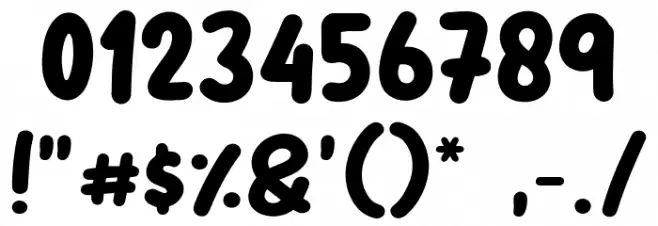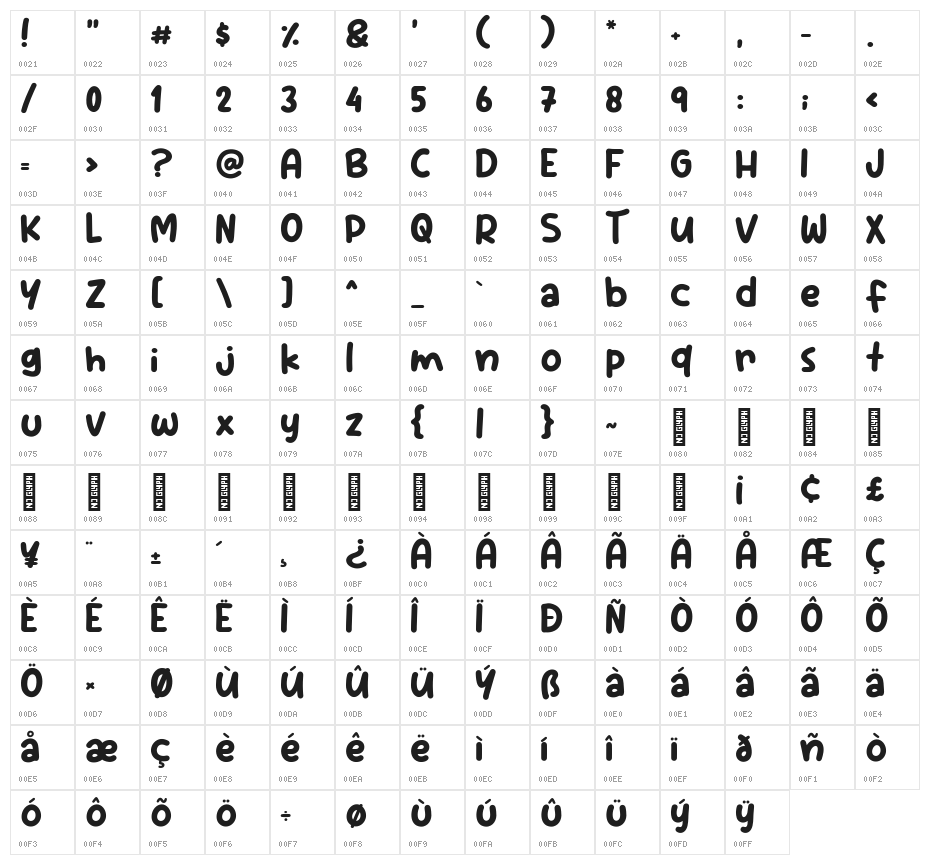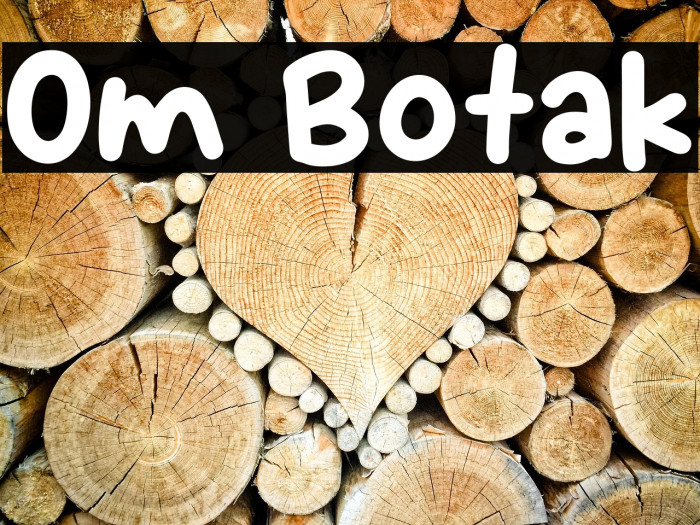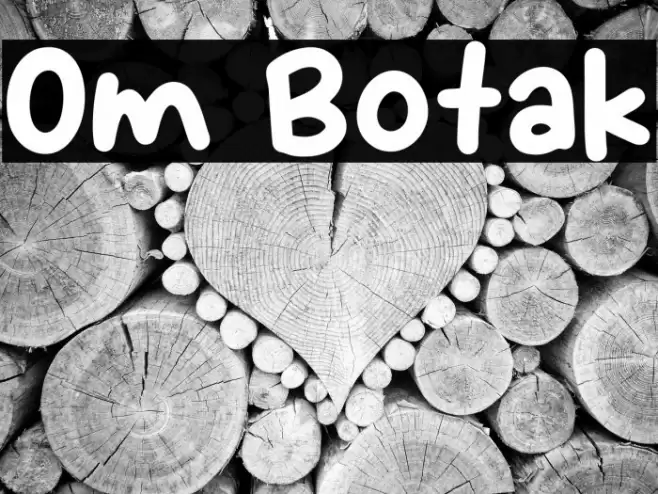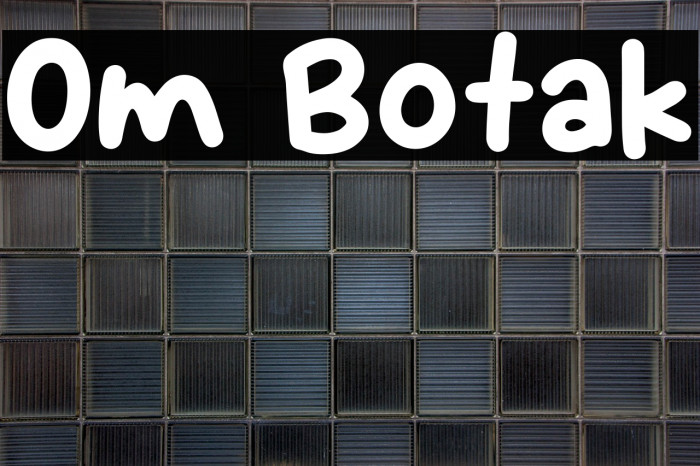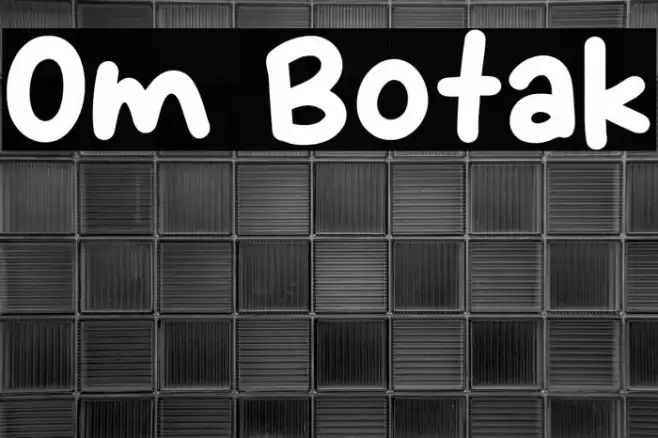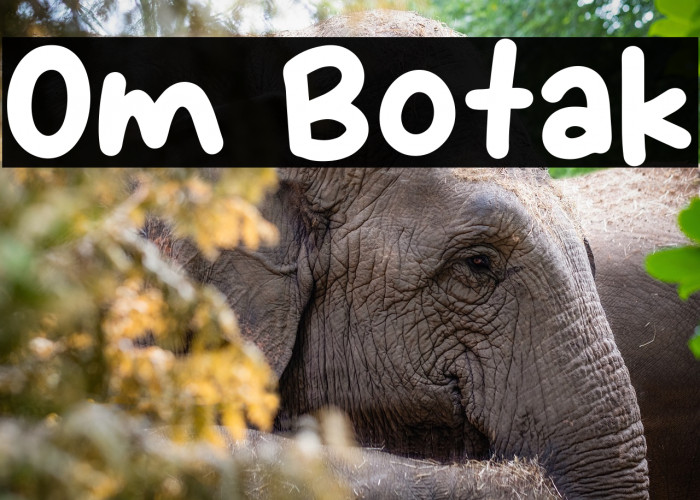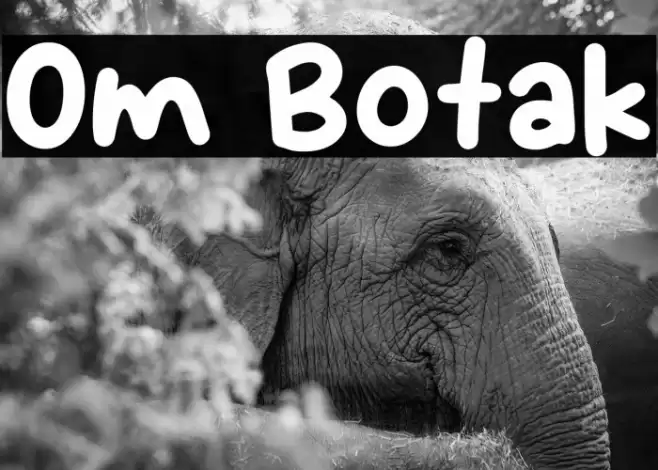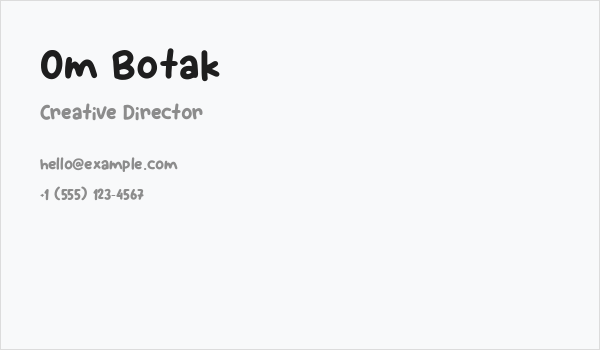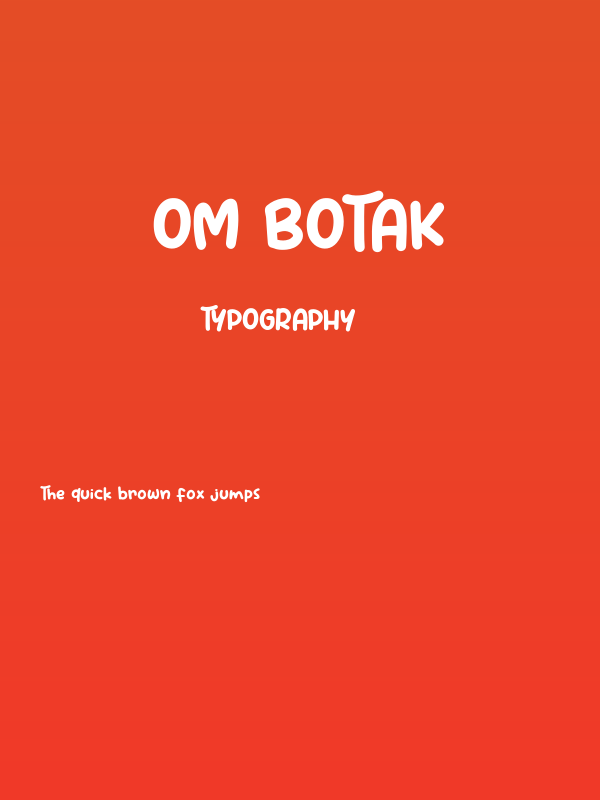
Om Botak Font
Om Botak Description
This playful and rounded font exudes a friendly and approachable vibe, characterized by its bold, smooth curves and slightly irregular shapes. The letters are thick and consistent, with a hand-drawn feel that adds a touch of whimsy. The font maintains a uniform stroke width throughout, providing a cohesive appearance. Its informal style makes it suitable for creative and casual applications, where a sense of fun and personality is desired. The characters are well-spaced, ensuring readability while maintaining a lively aesthetic.
| Proposed Projects | Ideal for children's books, playful branding, greeting cards, and informal event invitations. |